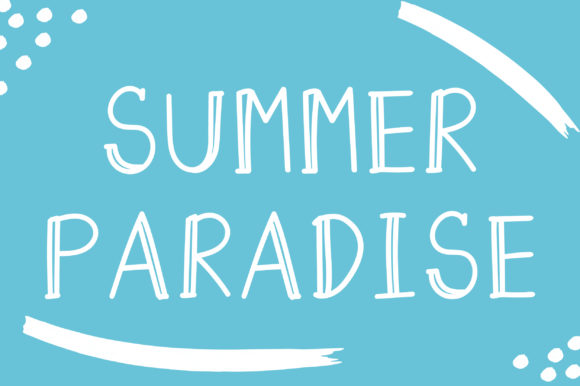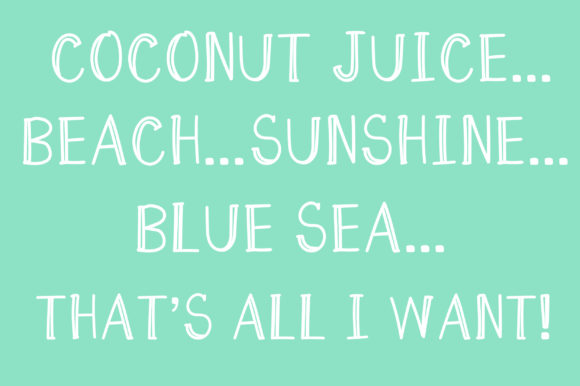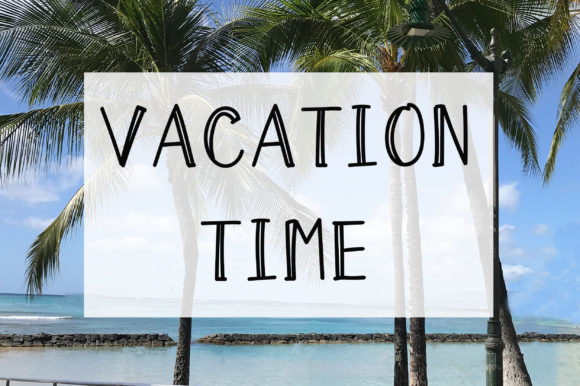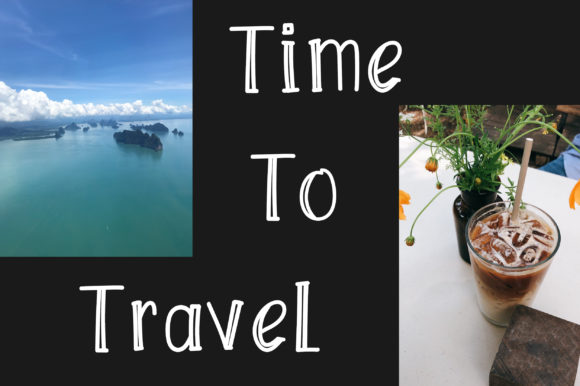
Coco Hawaiian Font: Add a Touch of Cheerfulness to Your Designs
Are you looking for a font that can add a dash of personality and whimsy to your designs? Look no further than the Coco Hawaiian Font! This cheerful handwritten font is perfect for designers and crafters who want to elevate their projects to the next level. In this article, we’ll explore the features and benefits of Coco Hawaiian Font, and show you how it can be used to create stunning designs.
What is Coco Hawaiian Font?
Coco Hawaiian Font is a beautiful, handwritten font that is designed to bring a touch of joy and playfulness to your designs. With its unique and cheerful style, it’s perfect for a wide range of projects, from branding and headings to wedding designs, invitations, signatures, logos, labels, and more!
Key Features of Coco Hawaiian Font
- Handwritten style: Coco Hawaiian Font has a lovely, handwritten feel that adds a personal touch to your designs.
- Cheerful and playful: This font is designed to bring a smile to your face, making it perfect for projects that require a lighthearted and upbeat vibe.
- Versatile: Coco Hawaiian Font can be used for a wide range of projects, from digital designs to print materials.
- Easily readable: Despite its playful style, Coco Hawaiian Font is easy to read, making it perfect for body text and headings.
Benefits of Using Coco Hawaiian Font
So, why should you choose Coco Hawaiian Font for your next project? Here are just a few benefits of using this amazing font:
- Adds personality to your designs: Coco Hawaiian Font is a great way to add a touch of personality and whimsy to your designs.
- Perfect for creative projects: If you’re working on a creative project, such as a wedding design or invitation, Coco Hawaiian Font is a great choice.
- High-quality design: Coco Hawaiian Font is designed to the highest standards, ensuring that your designs look professional and polished.
How to Use Coco Hawaiian Font
Using Coco Hawaiian Font is easy! Here are a few tips to get you started:
- Pair it with other fonts: Coco Hawaiian Font looks great when paired with other fonts, such as sans-serif fonts or script fonts.
- Use it for headings and titles: This font is perfect for headings and titles, adding a touch of personality and whimsy to your designs.
- Add it to your branding: If you’re looking to add a touch of personality to your branding, Coco Hawaiian Font is a great choice.
Design Ideas Using Coco Hawaiian Font
So, what can you create with Coco Hawaiian Font? Here are a few design ideas to get you started:
- Wedding designs: Coco Hawaiian Font is perfect for wedding designs, such as invitations, programs, and place cards.
- Party invitations: This font is great for party invitations, adding a touch of whimsy and fun to your designs.
- Branding and logos: Coco Hawaiian Font can be used to create unique and memorable branding and logos.
- Signatures and labels: This font is perfect for signatures and labels, adding a touch of personality to your designs.
In conclusion, Coco Hawaiian Font is a beautiful and cheerful handwritten font that is perfect for designers and crafters who want to add a touch of personality and whimsy to their designs. With its unique and playful style, it’s perfect for a wide range of projects, from branding and headings to wedding designs, invitations, signatures, logos, labels, and more! So why not give it a try and see how it can elevate your designs to the next level?